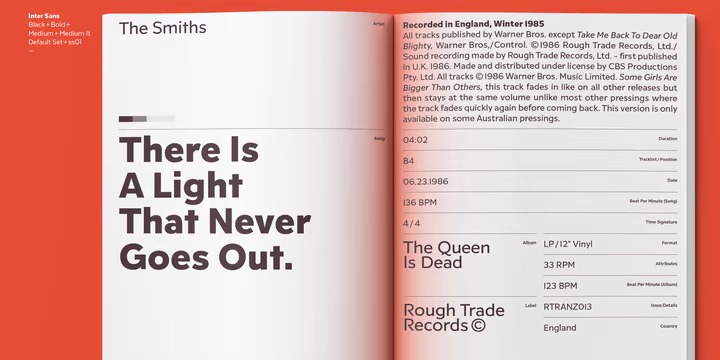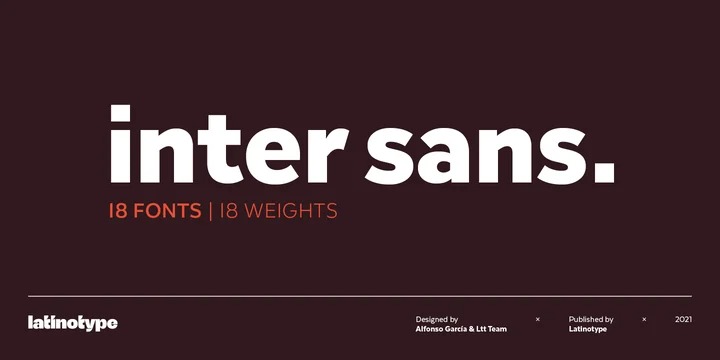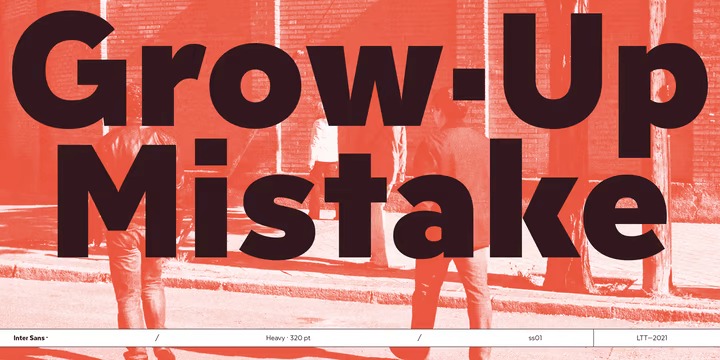
Inter Sans Font
This is a distinctive modern sans serif font manufactured by Latinotype. It offers rich solutions to your creative projects with its alternative versions. Inter Sans is well-suited for web use, apps, corporate use and short text (publishing). The font contains 439 glyphs—Latinotype’s basic character set plus alternative letters and signs—and supports over 200 languages that use the Latin alphabet.